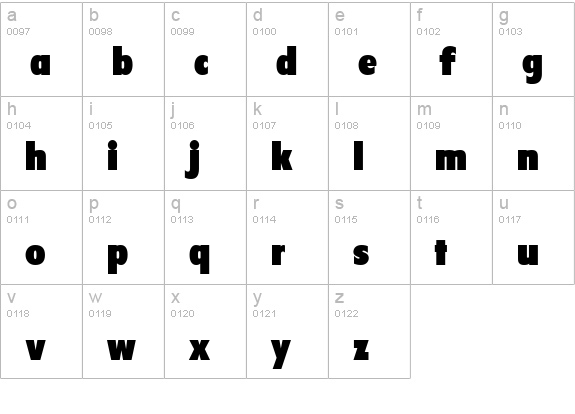
Seigh Display SSi Font Details
Seigh Display SSi is a captivating font that effortlessly merges elegance and modernity. With its clean lines and sophisticated curves, this font is perfect for adding a touch of refinement to any design project. Whether you're creating a logo, designing a website, or crafting eye-catching social media graphics, Seigh Display SSi will undoubtedly elevate your work to new heights. What sets Seigh Display SSi apart is not only its stunning aesthetic but also the fact that it is available for free. Yes, you read that right – this remarkable font can be downloaded at no cost from FontsMarket.com. This means that you can unleash your creativity without any constraints, as Seigh Display SSi is freely available for personal and commercial use. Imagine the possibilities that come with having such a versatile and visually striking font at your disposal. From advertising campaigns to branding materials, this font will effortlessly capture attention and leave a lasting impression. Its versatility allows it to be used across various industries, making it an ideal choice for designers, marketers, and creatives alike. Seigh Display SSi's impeccable legibility ensures that your message will be conveyed with clarity and impact. Additionally, its wide range of glyph options allows for seamless customization, providing endless opportunities for creative expression. Whether you want to emphasize a word, add a unique flourish, or simply play with different typographic styles, Seigh Display SSi has got you covered. So why wait? Unlock the full potential of your designs with Seigh Display SSi – the font that combines elegance, modernity, and the best part, it's free. Download it today at FontsMarket.com and embark on a journey of design excellence. The possibilities are endless with Seigh Display SSi.